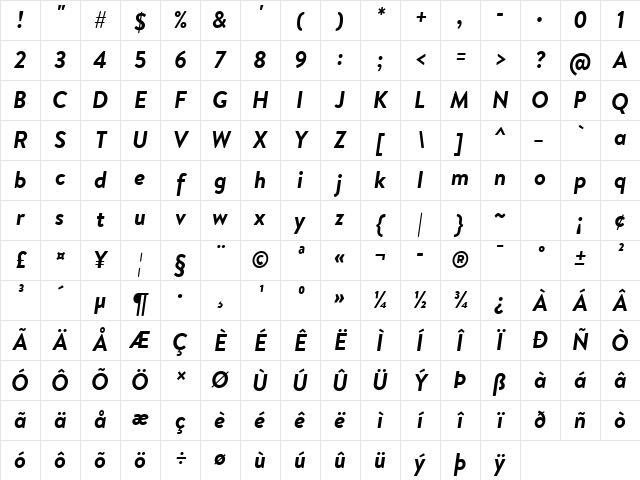
Brandon Text Bold Italic
Foundry: Hannes von Doehren
Designer: Hannes von Doehren
Complete Brandon Text Bold Italic glyph index. Displaying only characters natively supported by Brandon Text Bold Italic font.
Design Context for Brandon Text Bold
Brandon Text Bold is a composed and adaptable typeface that performs quietly and consistently across a wide range of design contexts. The slanted form adds forward momentum and visual energy. Its bold stroke weight gives it real presence on the page.